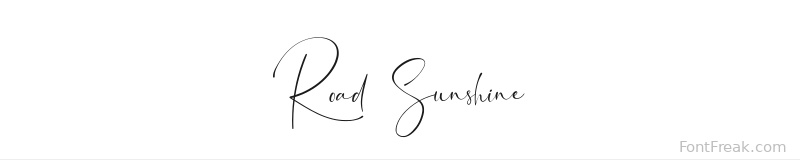
Road Sunshine
About Road Sunshine
Road Sunshine by Kong Font is a captivating display typeface that embodies a cheerful and whimsical aesthetic. This font showcases a unique handwritten style, characterized by its fluid strokes and playful curves, making it an excellent choice for projects that aim to evoke a sense of warmth and positivity. The stroke weight is moderately varied, providing a charming contrast that enhances its visual appeal. The spacing is well-balanced, allowing for easy readability while maintaining a lively and inviting look.
This font is particularly well-suited for a variety of creative applications. It shines in wedding invitations, where its romantic and informal vibe can set the perfect tone for the special day. Additionally, it works wonderfully for movie posters, especially in genres that emphasize lightheartedness or adventure. Restaurant menus can benefit from the Road Sunshine font, adding a touch of personality and flair that reflects a vibrant culinary experience. Furthermore, small business owners can utilize this font in branding materials or promotional graphics to create an approachable and friendly image.
What truly sets the Road Sunshine font apart is its ability to capture the essence of joy and positivity in a typeface. Its unique handwritten characteristics provide a personal touch that resonates with audiences, making it an ideal choice for projects that require a blend of creativity and warmth. With Road Sunshine font free download available, it’s easy to incorporate this charming typeface into your next design project.